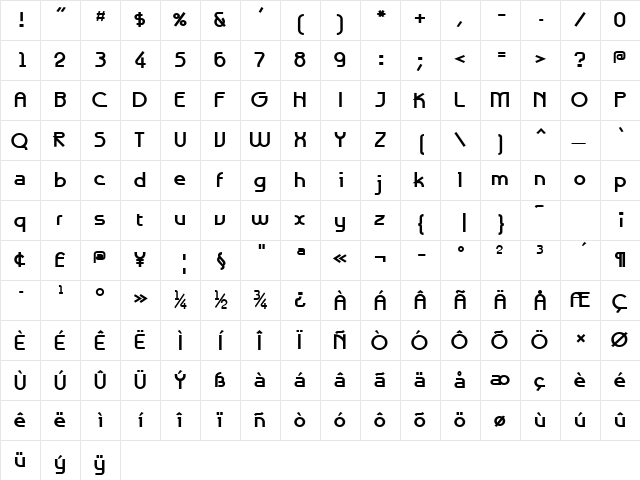
GalexicaExtraBold Regular
Design Context for GalexicaExtraBold Typeface
GalexicaExtraBold takes a measured approach to typography — its balanced proportions and neutral character make it a reliable workhorse for both digital and print work. The heavy weight commands attention and anchors typographic hierarchies.